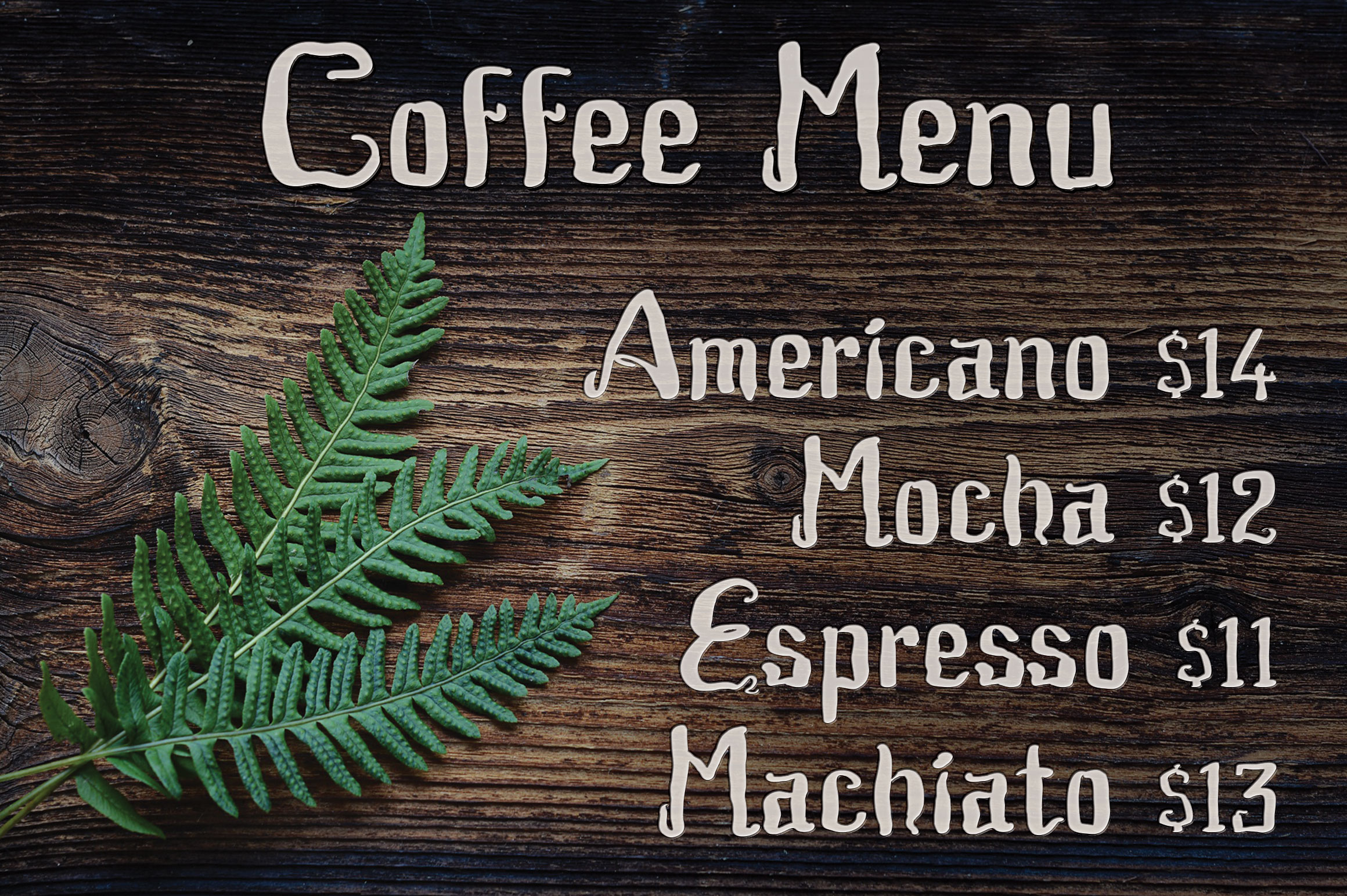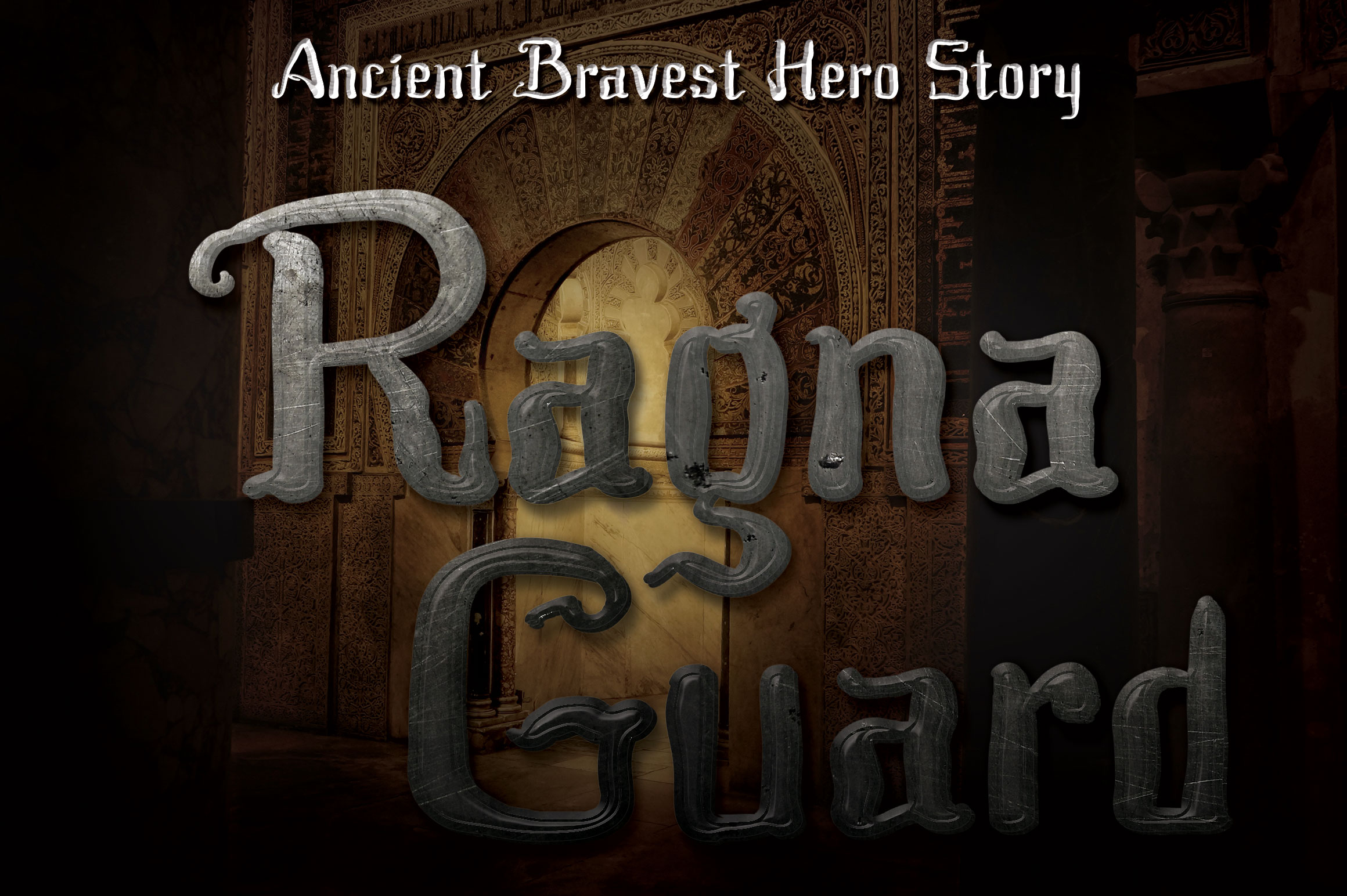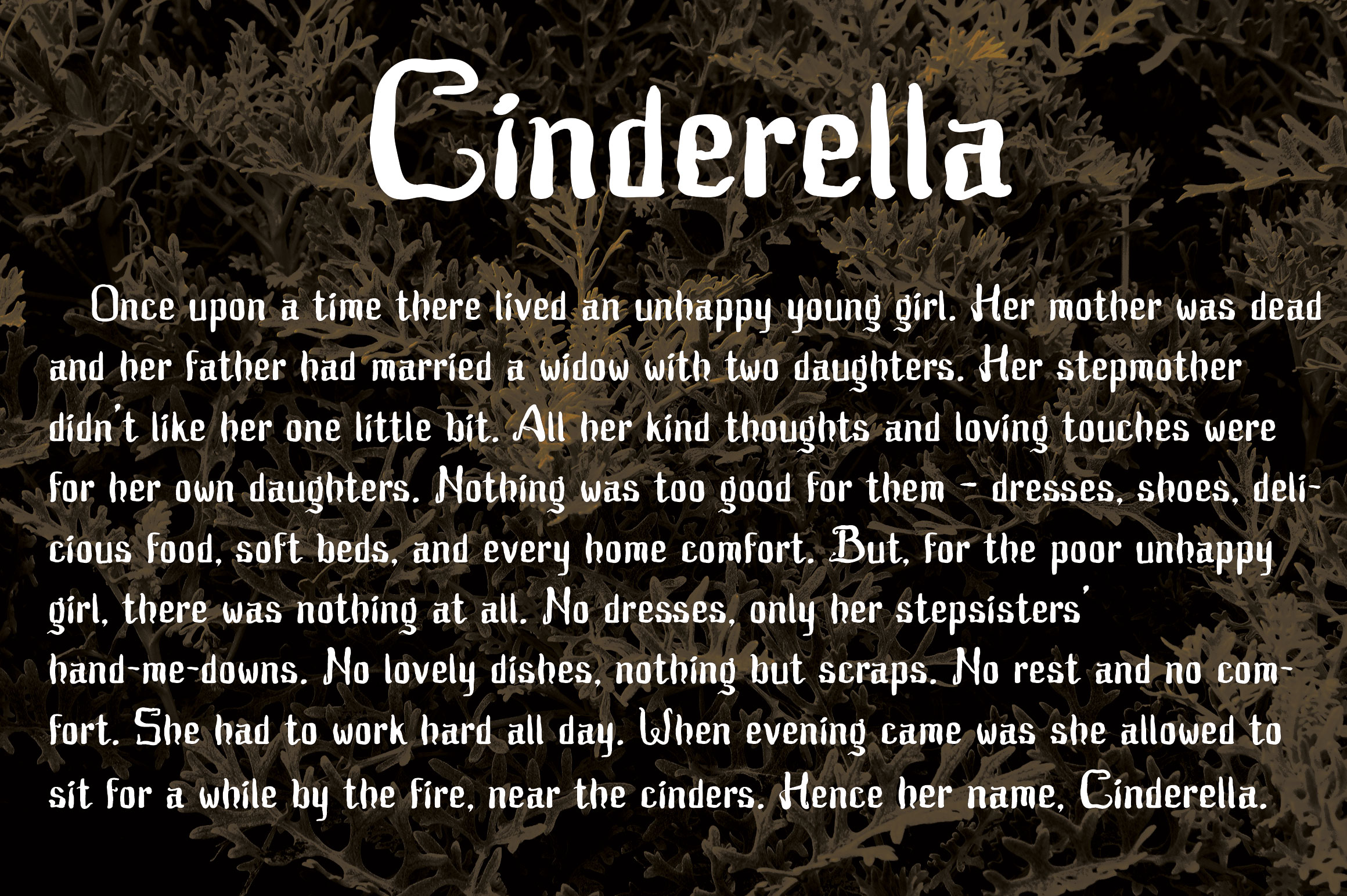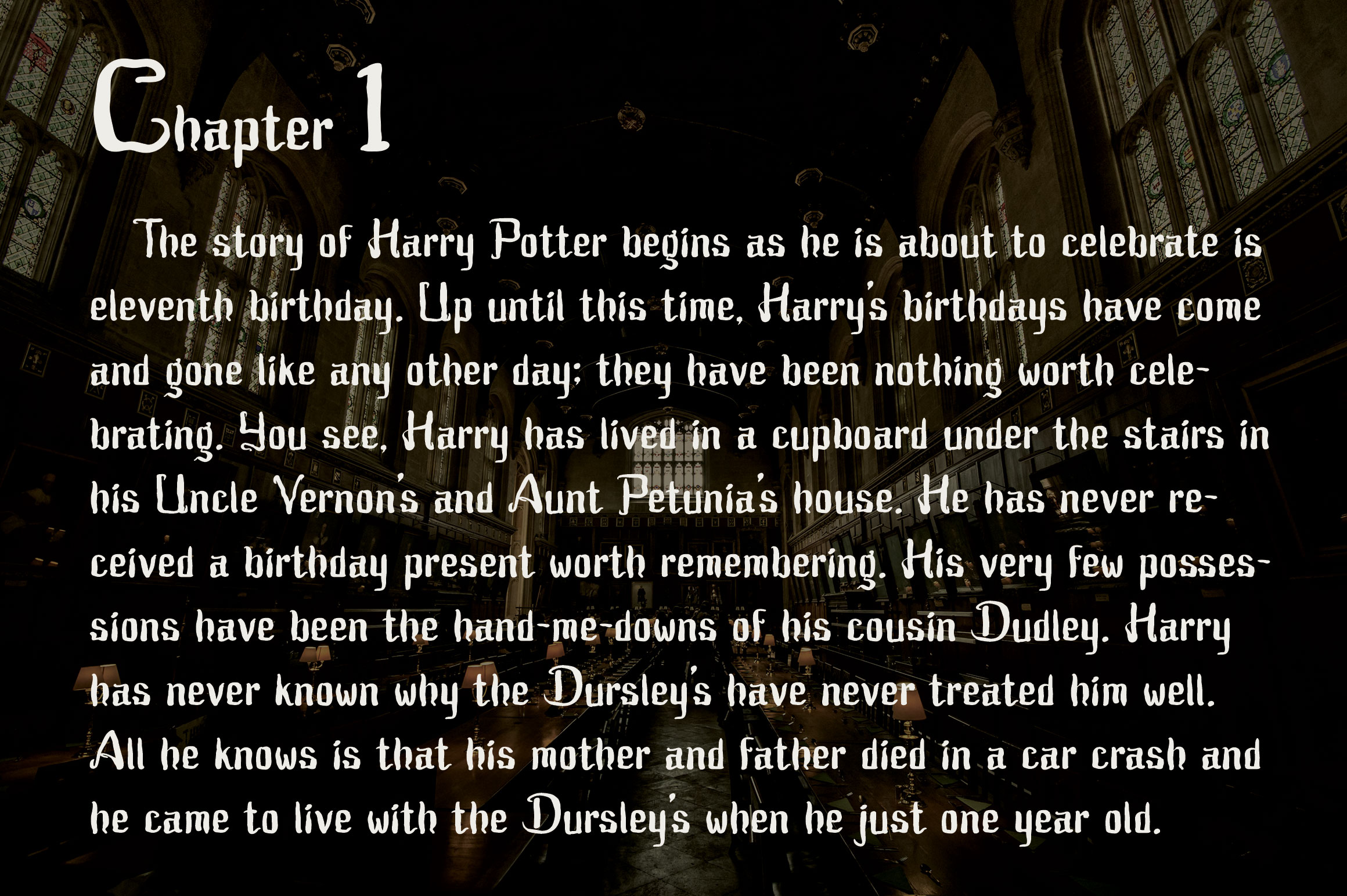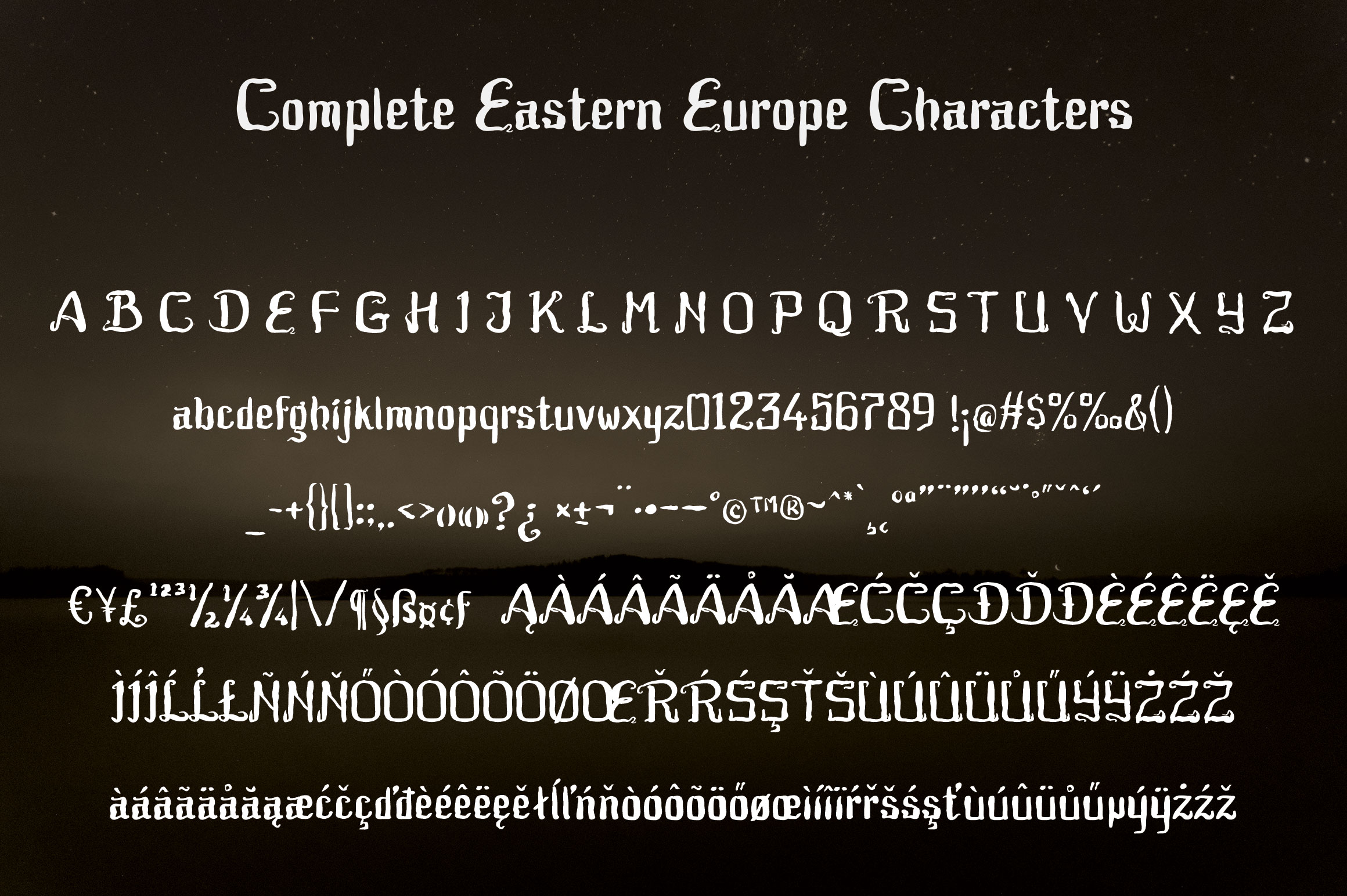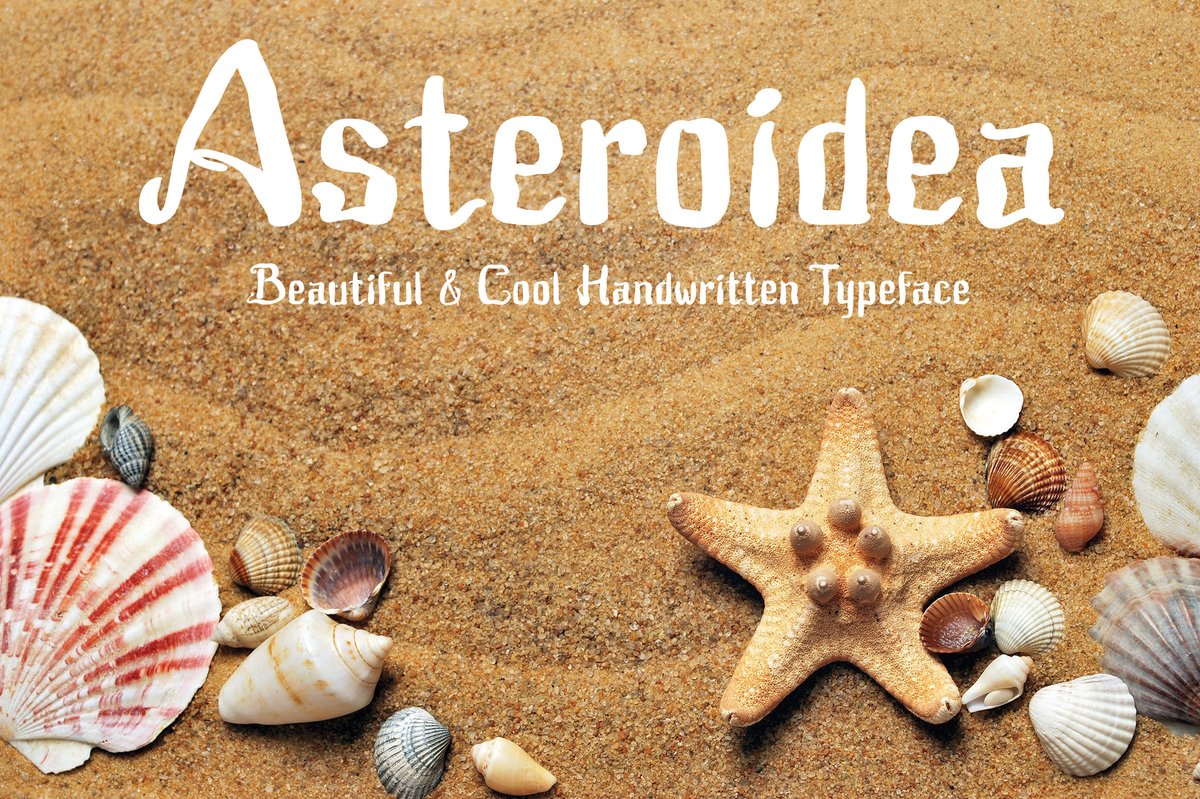
The Perfect Font for Your Creative Project
Have you ever found yourself staring at a blank page, trying to come up with the perfect font to match your creative vision? We’ve all been there, right? It’s that moment when the words just won’t flow, and the only thing that seems to be flowing is our frustration. But what if we told you that there’s a font that can help you break through that creative block and bring your ideas to life?
Meet the Asteroidea Font, a fun and playful typeface that’s sure to add a touch of whimsy to any project. With its slight vintage vibe, Asteroidea Font is perfect for designers looking to add a unique touch to their work. Whether you’re designing a logo, creating a social media post, or writing a blog article, this font is sure to bring a smile to your face and make your design stand out from the crowd.
Asteroidea Font Key Features
- Unique Characteristics: Asteroidea Font features a unique blend of modern and classic elements, with a distinctive star-like pattern that adds a touch of whimsy and sophistication.
- Font Style: Available in regular and bold weights, providing flexibility for designers to create a range of visual effects and emphasis.
Asteroidea Font Review
I recently had the chance to dive into the Asteroidea font, and I’m excited to share my thoughts on this intriguing typeface.
- The unique blend of modern and organic elements creates an interesting visual tension that can be quite effective in the right context.
- The font’s range of weights and styles provides flexibility for designers to experiment with different moods and atmospheres.
- The distinctive letterforms and flourishes can add a touch of elegance and sophistication to designs.
- The font’s complexity can make it challenging to read at smaller sizes or in situations where legibility is crucial.
- The organic elements can sometimes feel overly ornate or even distracting, particularly in text-heavy designs.
- The font’s versatility may be limited by its tendency to lean towards a specific aesthetic or style, which might not suit every design project.
Overall, Asteroidea is a thought-provoking font that can add a unique touch to designs. While it may not be the best fit for every project, it can be a great choice when the right context is found. With careful consideration and selection, designers can unlock the full potential of this intriguing typeface.
Tips for Getting the Most Out of Asteroidea Font
1. Use Asteroidea Font for headings and titles to add a touch of elegance to your designs.
2. Experiment with different font sizes and colors to create visual hierarchy and emphasis.
3. Use Asteroidea Font in conjunction with other fonts to create a unique and stylish typography.
Asteroidea Font is perfect for:
1. Luxury branding and marketing materials.
2. High-end packaging and product design.
3. Elegant and sophisticated websites and digital products.
Alternatives to Asteroidea Font
Asteroidea Font is a sans-serif font known for its clean and modern design. However, designers may be looking for alternatives that offer different characteristics. Here are a few options:
Montserrat Font is a geometric sans-serif font designed specifically for digital interfaces. It is known for its strong x-height and horizontal axis, making it perfect for headlines and titles. Montserrat Font is more condensed than Asteroidea Font, making it ideal for small screens and mobile devices.